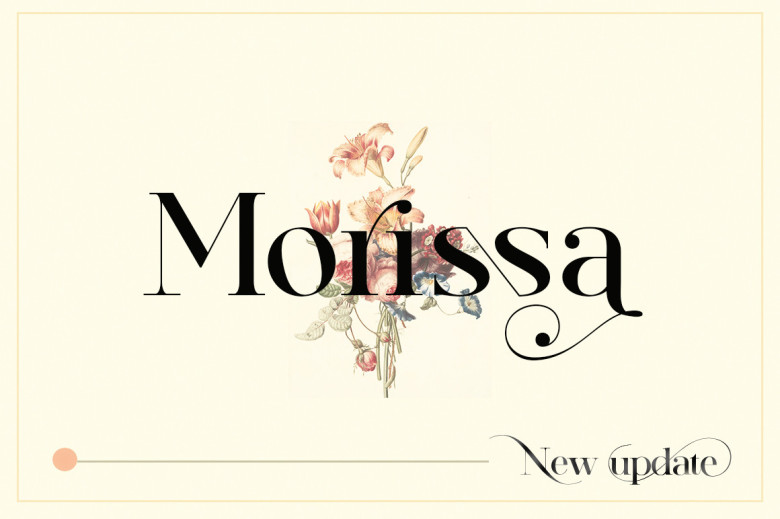
Morissa Font
Morissa is an elegant serif font that will add style and sophistication to your designs. PUA encoded, this font makes accessing all glyphs and swashes effortless – be amazed by what beautiful results emerge when used in designs! Include it today and experience its magic for yourself.
Morissa Elegant Serif Font